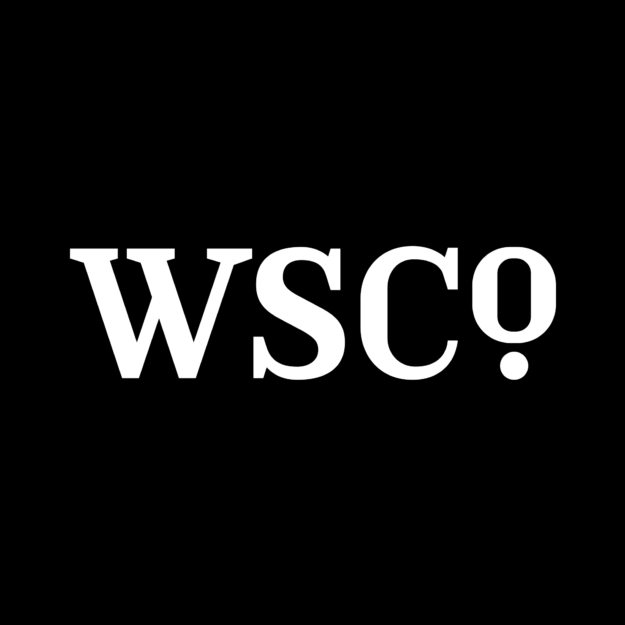
Regave, Danish Style Type Family of 24 Fonts
Regave comes in 11 weights from Thin to ExtraBlack with matching italics and is also available in Variable Font format for more flexibility in weight selection. This family is also equipped with useful OpenType features such as Ordinals, Superscripts, Subscripts, Stylistic Alternates, Stylistic Sets, Proportional Lining, Standard Ligatures, Fractions, and Numerators & Denominators. Each font has 490+ glyphs that cover Western & Eastern Europe and other Latin-based languages – over 200 languages supported!
Introducing Regave, a typeface inspired by Danish-style lettering based on the work of Knud Valdemar Engelhardt (1882–1931), who designed the street signs for the Copenhagen suburb of Gentofte. Engelhardt’s design was loosely based on the lettering of two Danish architects of the time: Thorvald Bindesbøll (designer of the Carlsberg logo) and Anton Rosen. The signs were so successful that they’re still in use today.
Regave comes in 11 weights from Thin to ExtraBlack with matching italics and is also available in Variable Font format for more flexibility in weight selection. This family is also equipped with useful OpenType features such as Ordinals, Superscripts, Subscripts, Stylistic Alternates, Stylistic Sets, Proportional Lining, Standard Ligatures, Fractions, and Numerators & Denominators. Each font has 490+ glyphs that cover Western & Eastern Europe and other Latin-based languages – over 200 languages supported!
This masculine, strong, and unique typeface will be suitable for logos, posters, presentations, headlines, lettering, branding, quotes, titles, magazines, headings, Web banners, mobile applications, art quotes, advertising, packaging design, book title, and more!
- 22 Danish-style sans serif fonts;
- 2 variable fonts;
- 11 different weights from Thin to ExtraBlack, with matching italics;
- Functional OpenType features include kerning and alternates;
- Supports more than 200 Latin languages;
- 490+ glyphs per font.